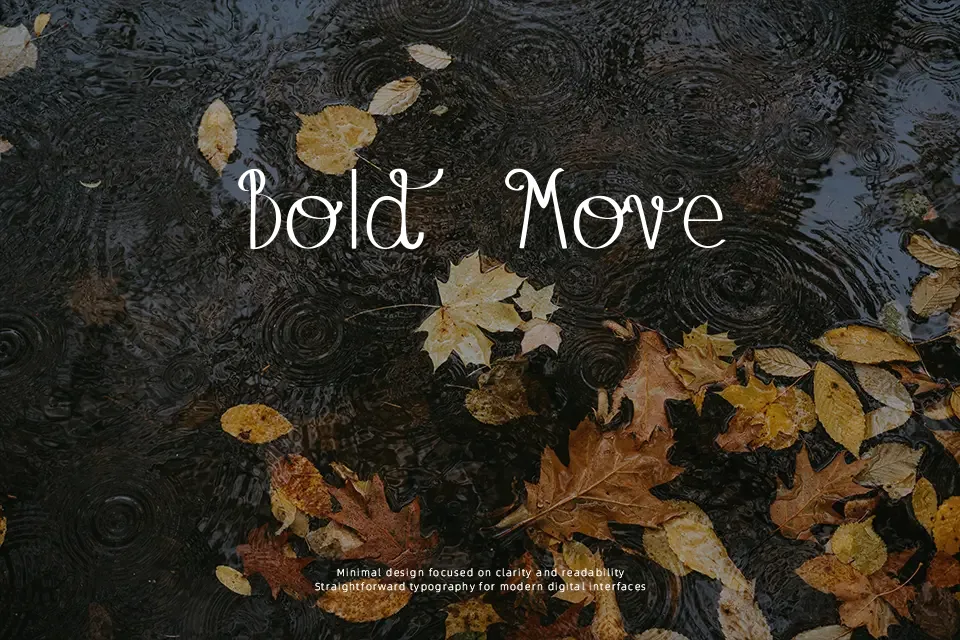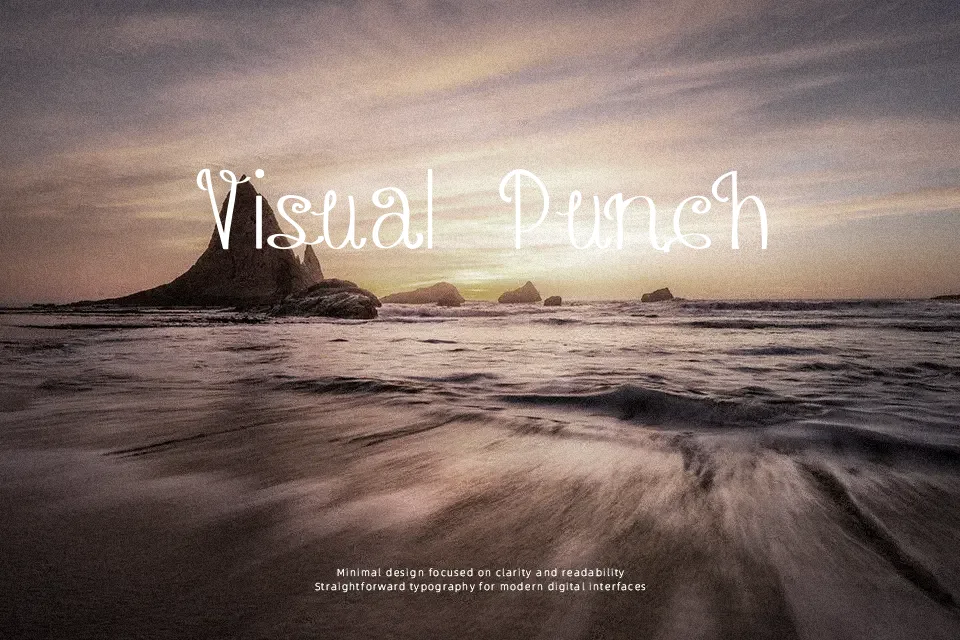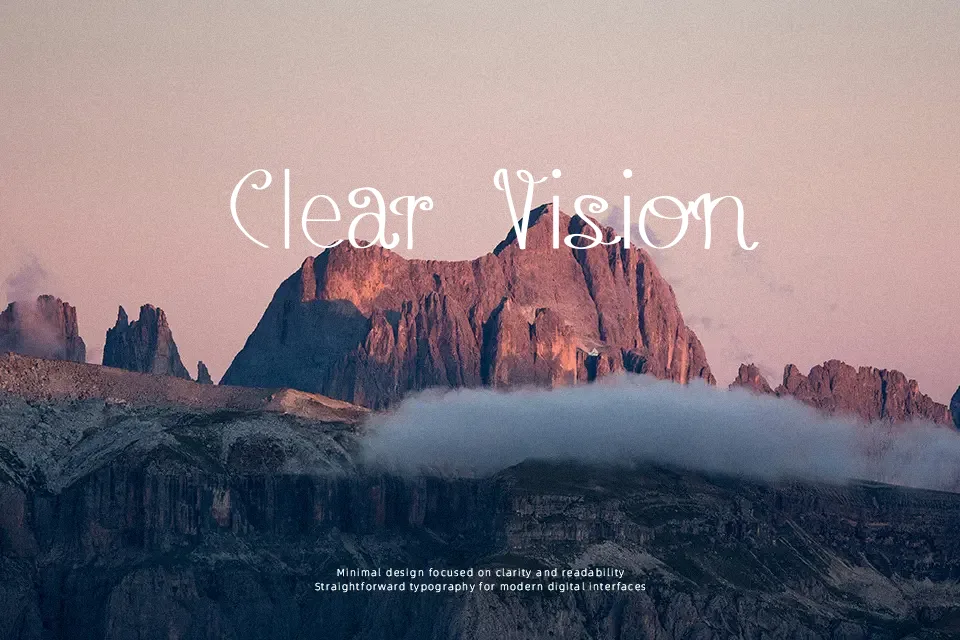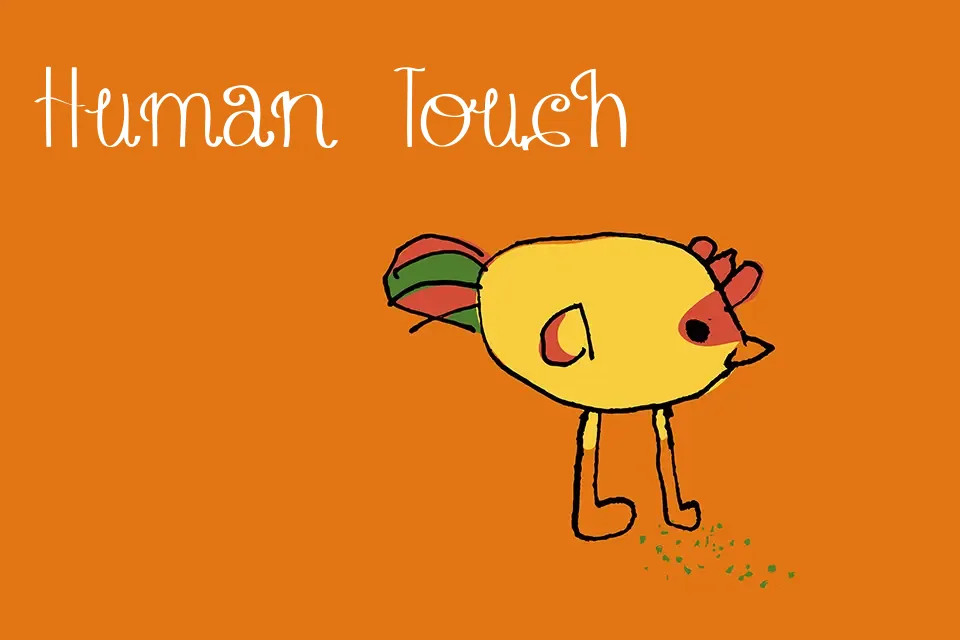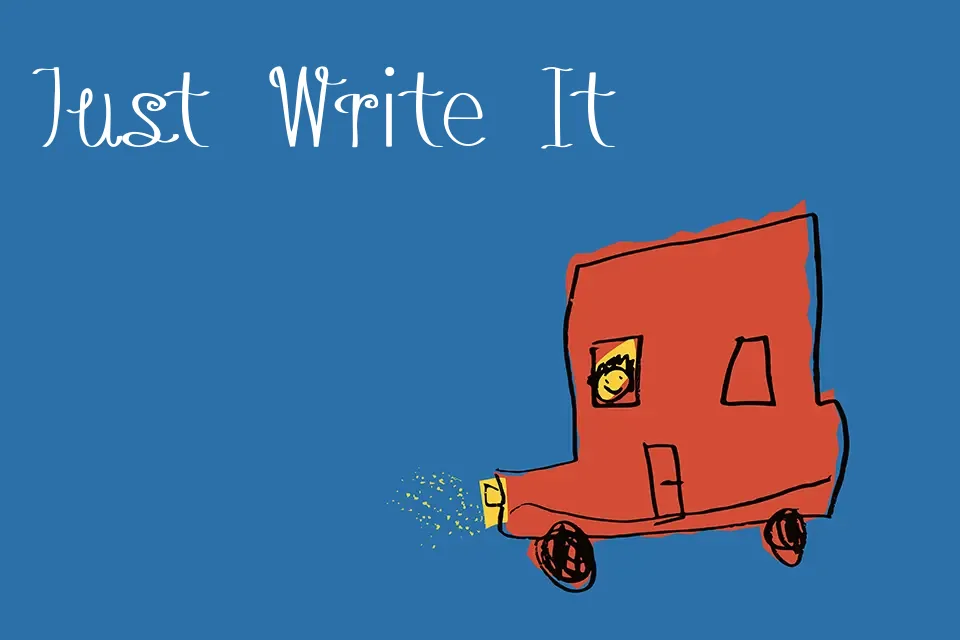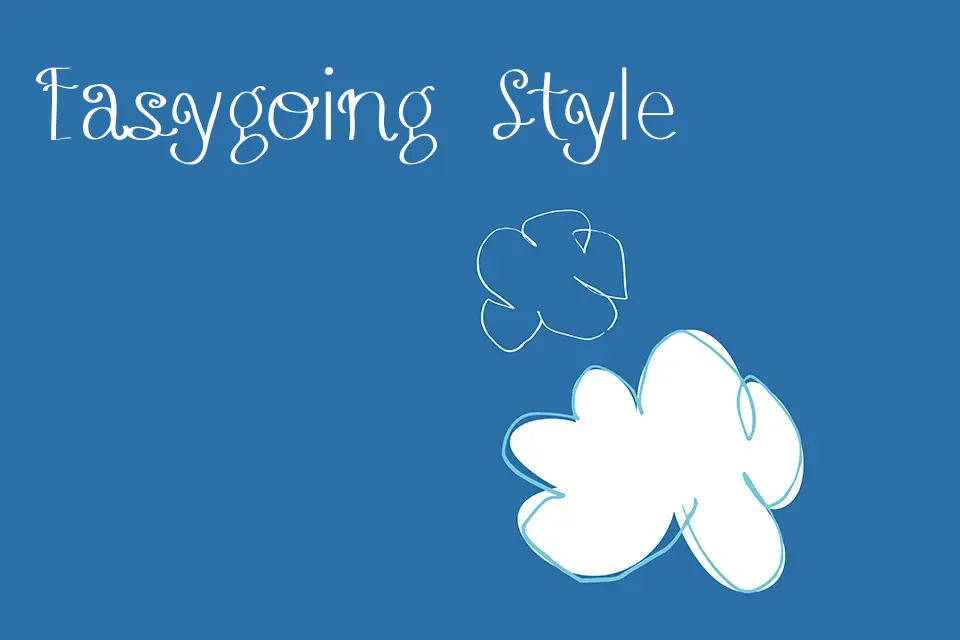
Austie Bost Blueberry Muffins Font
Designed by Austie Bost Fonts
The letterforms in this font curve and bounce with a loose, informal energy — each character sits at a slightly different rhythm, giving the overall text a playful, hand-drawn personality. The strokes are rounded and soft without any sharp contrast, leaning fully into casual decorative territory rather than structured calligraphy. It handles well on short display copy: bakery-themed headers, craft project titles, or whimsical greeting card accents. That said, the author openly notes spacing issues with symbols and special characters due to a corrupted source file — a real limitation that affects typographic polish. For projects requiring clean punctuation or extended character support, this font will frustrate more than it charms. Stick to basic Latin alphabet usage and it holds up nicely at larger display sizes.
Best For:- Baking and food blog post headers
– Children’s birthday invitation titles
– Craft or DIY project branding
– Casual social media quote graphics
Not Ideal For:- Any copy requiring symbols, punctuation, or special characters (known spacing bugs)
– Long-form body text or paragraphs
– Corporate or professional branding materials
– Projects where typographic consistency is critical
Perfect for holiday, invitation, and kids, with a creative and decorative style.